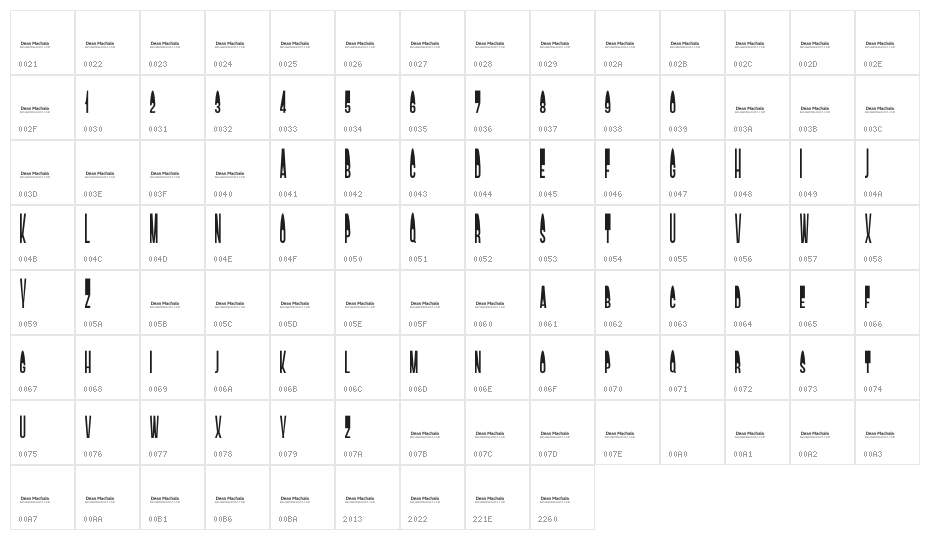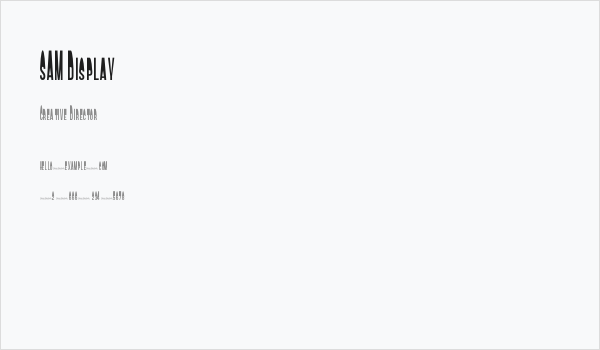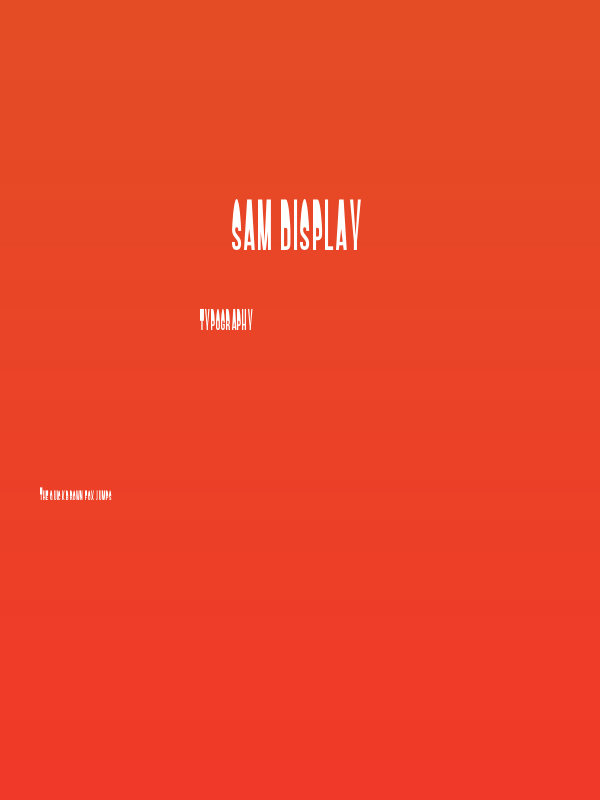
SAM Display Font
SAM Display Description
This font features a bold and striking design, characterized by its tall, narrow letterforms and high contrast between thick and thin strokes. The uppercase letters are particularly elongated, giving a sense of height and elegance. The lowercase letters maintain a consistent style, complementing the uppercase with a slightly more compact form. The numbers are bold and easily readable, matching the overall aesthetic. This font is designed to make a strong visual impact, suitable for attention-grabbing headlines and display purposes.
| Proposed Projects | Perfect for use in posters, advertising, branding, and any project requiring a strong visual presence. |